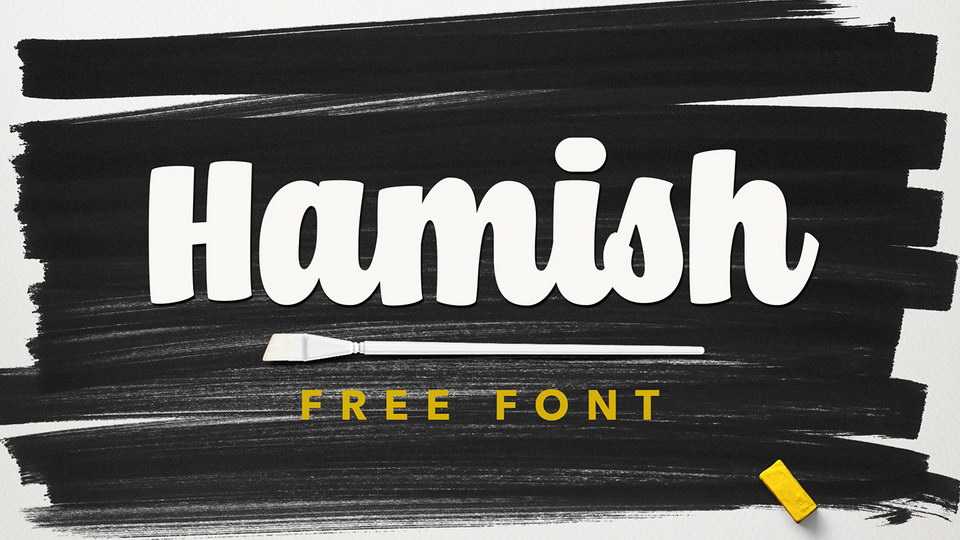
Download Hamish font, a beautiful script typeface designed with deliciously taste, so fruity, and milky. Hamish script is perfect for various purposes like tagline, t-shirt design, logos, quotes design etc.